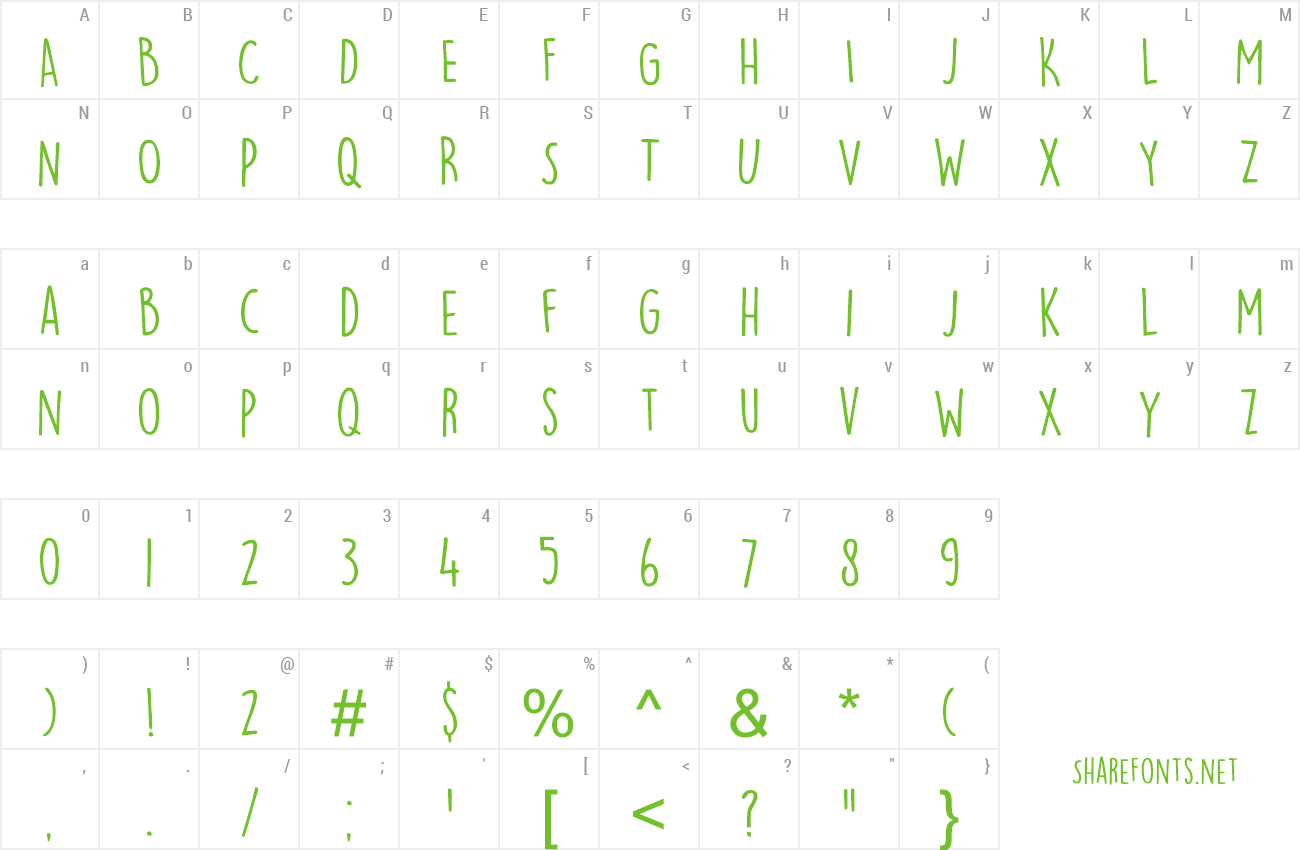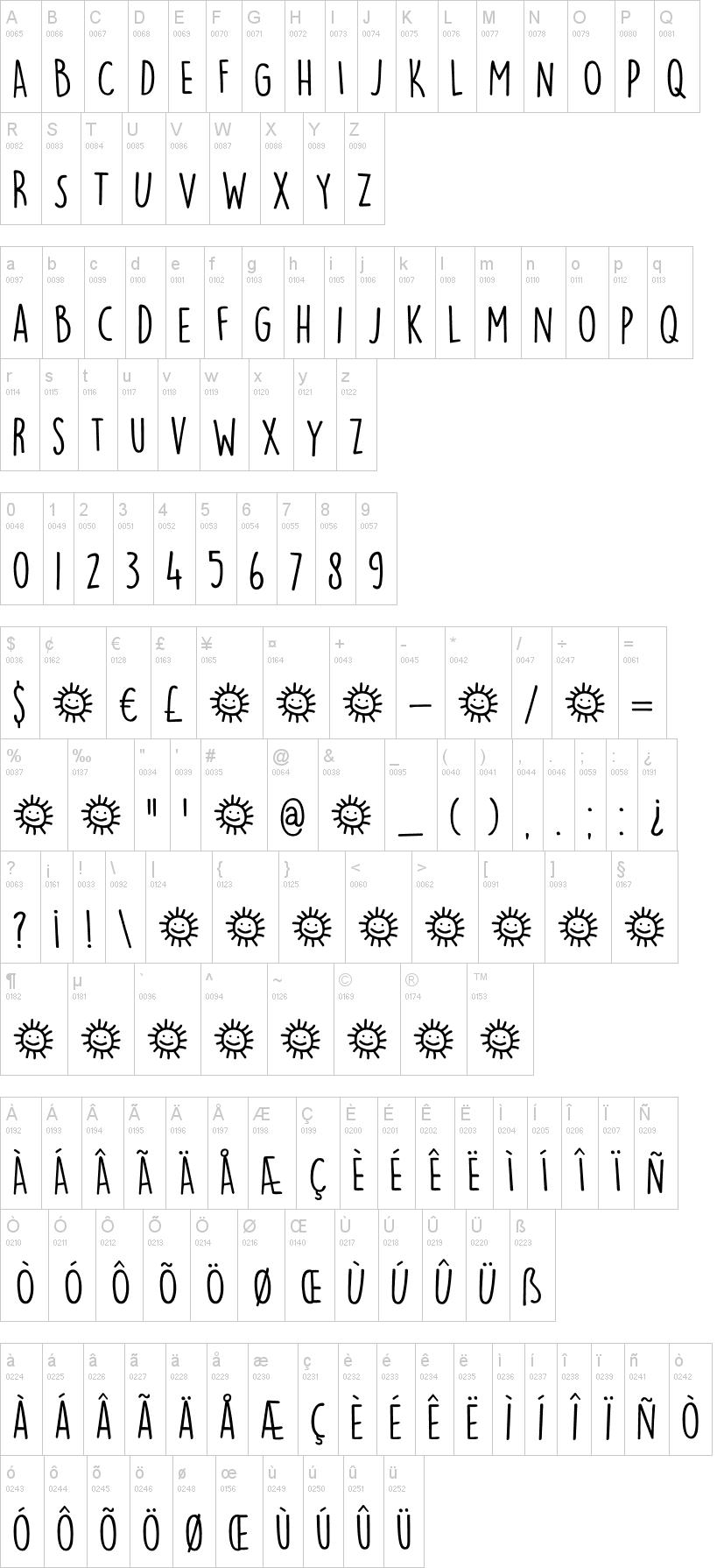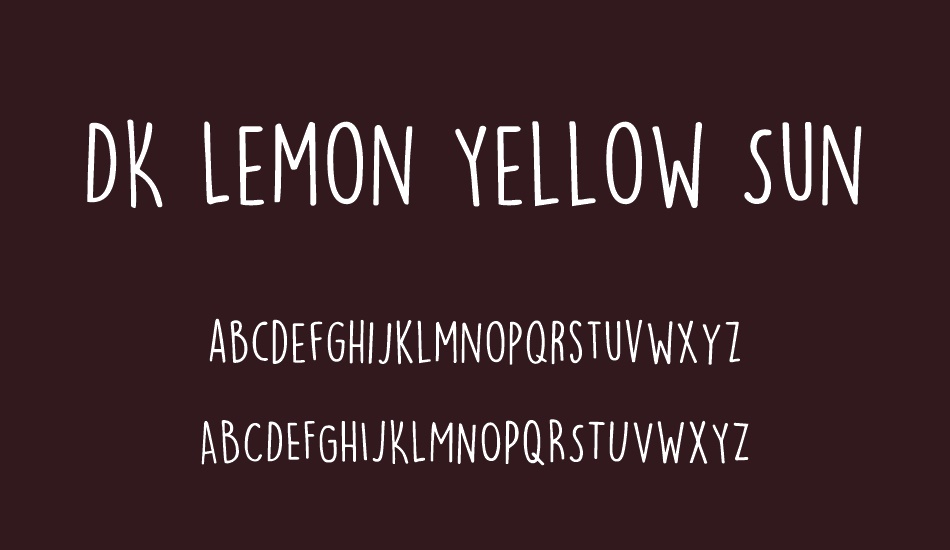
Lemon Yellow Sun Font
Lemon Yellow Sun Font - Web woff2 is supported in firefox versions 39+. Use the controls below to customize your text string and its. Complete family of 6 fonts: Web a custom font by hanoded in script > handwritten style, with 5,195,600 downloads and 28 comments. Lemon yellow sun extra bold. Woff2 is supported in microsoft edge versions 14+.
Woff2 is supported in microsoft edge versions 14+. Web a custom font by hanoded in script > handwritten style, with 5,195,600 downloads and 28 comments. Web woff2 is supported in firefox versions 39+. Use the controls below to customize your text string and its. Lemon yellow sun extra bold. Complete family of 6 fonts:
Web a custom font by hanoded in script > handwritten style, with 5,195,600 downloads and 28 comments. Complete family of 6 fonts: Woff2 is supported in microsoft edge versions 14+. Web woff2 is supported in firefox versions 39+. Use the controls below to customize your text string and its. Lemon yellow sun extra bold.
Complete family of 6 fonts: Web woff2 is supported in firefox versions 39+. Woff2 is supported in microsoft edge versions 14+. Web a custom font by hanoded in script > handwritten style, with 5,195,600 downloads and 28 comments. Lemon yellow sun extra bold.
Lemon yellow sun extra bold. Web a custom font by hanoded in script > handwritten style, with 5,195,600 downloads and 28 comments. Complete family of 6 fonts: Web woff2 is supported in firefox versions 39+. Use the controls below to customize your text string and its.
DK Lemon Yellow Sun font by Hanoded FontRiver
Woff2 is supported in microsoft edge versions 14+. Web woff2 is supported in firefox versions 39+. Web a custom font by hanoded in script > handwritten style, with 5,195,600 downloads and 28 comments. Use the controls below to customize your text string and its. Complete family of 6 fonts:
DK Lemon Yellow Sun
Complete family of 6 fonts: Web a custom font by hanoded in script > handwritten style, with 5,195,600 downloads and 28 comments. Lemon yellow sun extra bold. Woff2 is supported in microsoft edge versions 14+. Use the controls below to customize your text string and its.
Web woff2 is supported in firefox versions 39+. Lemon yellow sun extra bold. Woff2 is supported in microsoft edge versions 14+. Web a custom font by hanoded in script > handwritten style, with 5,195,600 downloads and 28 comments. Use the controls below to customize your text string and its.
Woff2 is supported in microsoft edge versions 14+. Complete family of 6 fonts: Use the controls below to customize your text string and its. Web woff2 is supported in firefox versions 39+. Web a custom font by hanoded in script > handwritten style, with 5,195,600 downloads and 28 comments.
Lemon Yellow Sun Font by Hanoded Font Bros
Web a custom font by hanoded in script > handwritten style, with 5,195,600 downloads and 28 comments. Use the controls below to customize your text string and its. Web woff2 is supported in firefox versions 39+. Lemon yellow sun extra bold. Complete family of 6 fonts:
DK Lemon Yellow Sun Font David Kerkhoff FontSpace
Lemon yellow sun extra bold. Complete family of 6 fonts: Web woff2 is supported in firefox versions 39+. Woff2 is supported in microsoft edge versions 14+. Web a custom font by hanoded in script > handwritten style, with 5,195,600 downloads and 28 comments.
Lemon Yellow Sun Font by Hanoded Font Bros
Lemon yellow sun extra bold. Use the controls below to customize your text string and its. Complete family of 6 fonts: Web a custom font by hanoded in script > handwritten style, with 5,195,600 downloads and 28 comments. Web woff2 is supported in firefox versions 39+.
DK Lemon Yellow Sun Font All Free Fonts
Use the controls below to customize your text string and its. Web woff2 is supported in firefox versions 39+. Complete family of 6 fonts: Web a custom font by hanoded in script > handwritten style, with 5,195,600 downloads and 28 comments. Woff2 is supported in microsoft edge versions 14+.
Web A Custom Font By Hanoded In Script > Handwritten Style, With 5,195,600 Downloads And 28 Comments.
Complete family of 6 fonts: Woff2 is supported in microsoft edge versions 14+. Web woff2 is supported in firefox versions 39+. Lemon yellow sun extra bold.